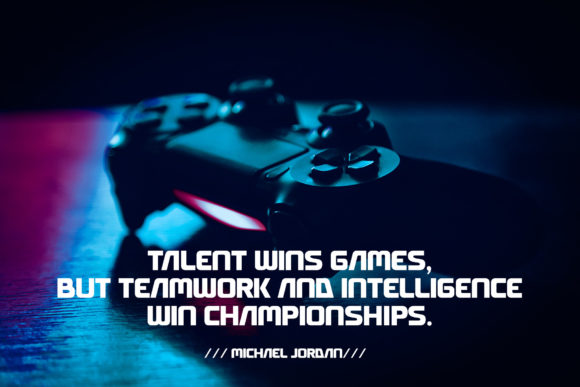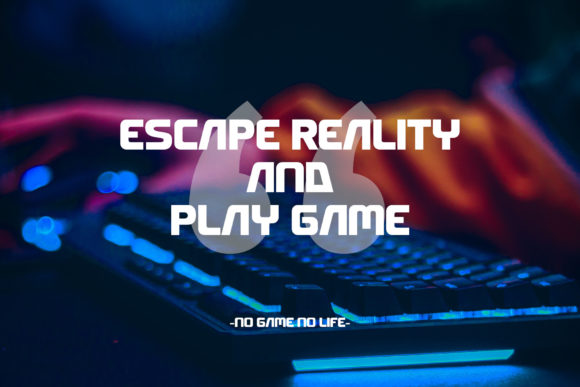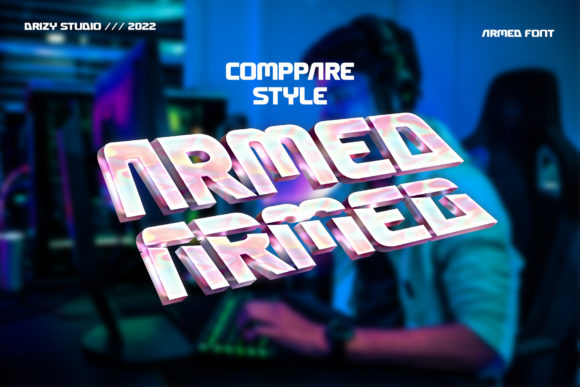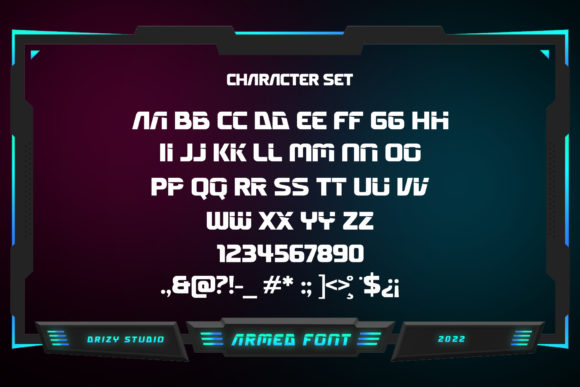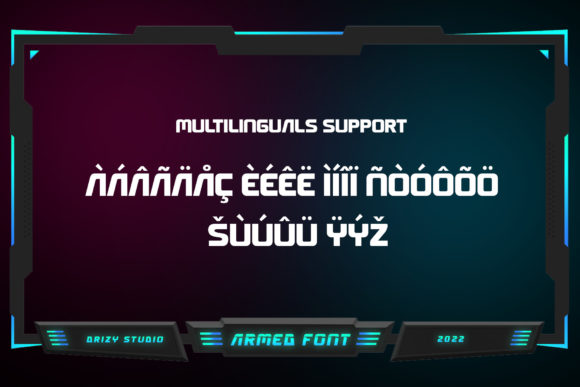
Unlock the Future of Design with the Armed Font
Have you ever stared at a sleek gadget, mesmerized by the futuristic interface and wondered how to capture that same essence in your designs? We’ve all been there, searching for the perfect font to give our work a cutting-edge look. That’s where the Armed Font comes in – a bold, minimalist font that’s inspired by the visual language of technology.
Armed Font is more than just a font – it’s a powerful tool for designers who want to make a statement. With its unique letterforms and futuristic vibe, it’s perfect for logos, labels, posters, packaging, and more. Whether you’re working on a sci-fi movie, a video game, or a tech startup, Armed Font will give your design a dynamic and modern look that’s sure to impress.
Armed Font Key Features
- Font Family: Armed Font is a sans-serif font family designed for digital use, with multiple weights and styles available.
- Character Set: The font family includes a comprehensive character set, covering Latin, Cyrillic, and Greek alphabets, as well as a range of punctuation and special characters.
- Weight and Style Options: The font family includes 12 weights, ranging from Thin to Black, and 3 styles: Regular, Italic, and Bold Italic.
Armed Font Review
I recently had the chance to work with the Armed Font, and I must say, it’s a mixed bag. Let’s start with what works well: ✨ the font’s bold, edgy design is perfect for creating a sense of tension and urgency in designs where you need to grab attention. The font’s sharp lines and geometric shapes make it ideal for titles, headings, and other prominent text elements. ✨ the font’s high x-height also makes it easy to read, even at smaller sizes.
However, there are some limitations to consider: ⚠️ the font’s overall aesthetic can come across as somewhat gimmicky or over-the-top, which may not be suitable for all projects. Additionally, the font’s lack of subtlety can make it difficult to use in designs where a more nuanced approach is required. ⚠️ the font’s limited character set and poor support for certain languages are also significant drawbacks.
Key Features:
- Bold, edgy design perfect for grabbing attention
- Sharp lines and geometric shapes make it ideal for titles and headings
- High x-height makes it easy to read at smaller sizes
- Limited character set and poor support for certain languages
In conclusion, the Armed Font is a solid choice for projects where you need to make a bold statement, but it may not be the best fit for more subtle or nuanced designs. With its limitations in mind, I would recommend using this font judiciously and in combination with other typefaces to achieve a more balanced look.
The Armed Font is ideal for creating bold, eye-catching headlines and titles. It’s also great for adding a touch of edginess to your designs. Use it to grab attention, convey confidence, and make a statement.
Some common use cases for the Armed Font include:
- Headlines and titles
- Call-to-actions (CTAs)
- Brand logos and identities
- Marketing materials and promotional items